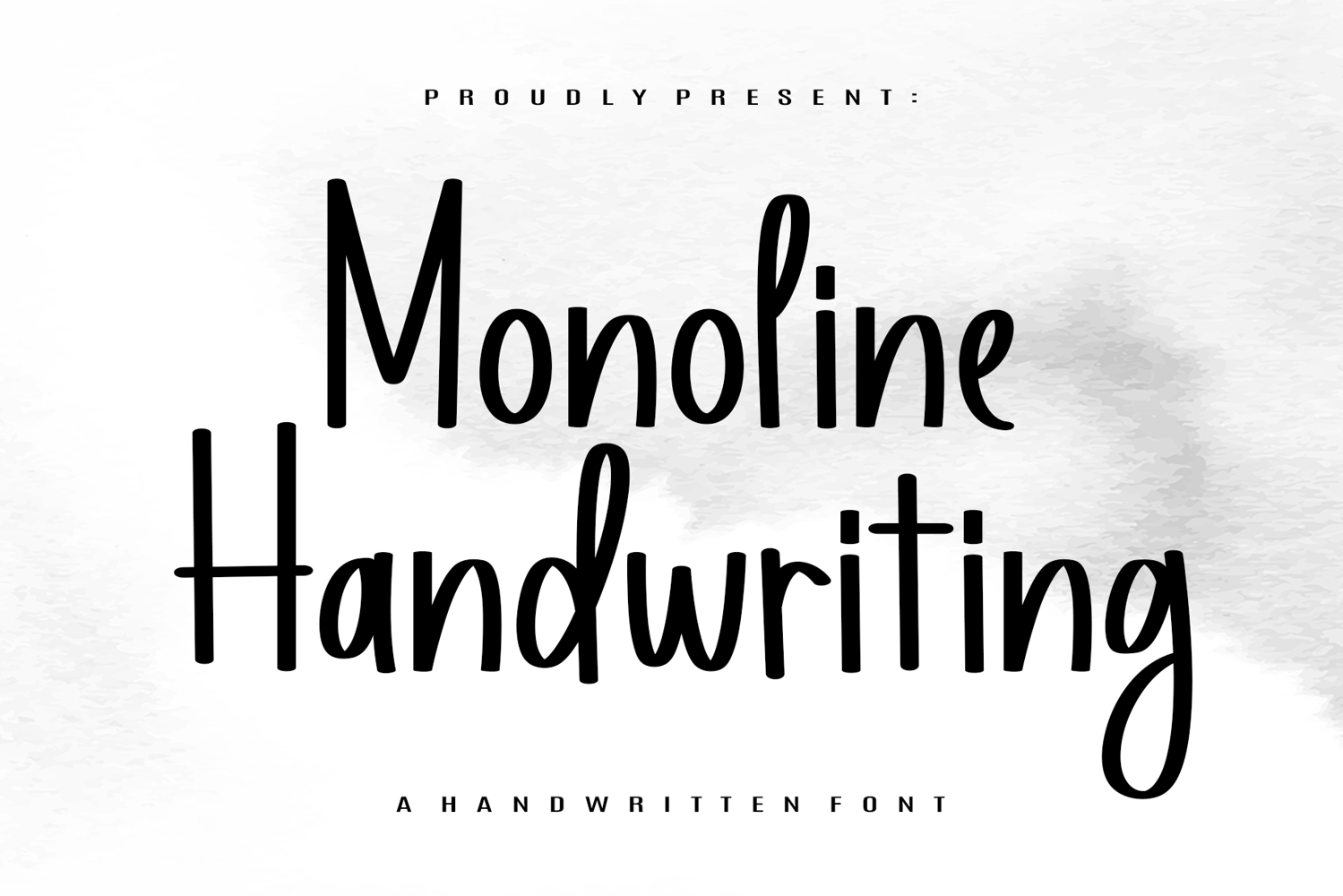
Monoline Handwriting
Discover the appealing simplicity of Monoline Handwriting, an effortlessly stylish font characterized by its fluidity and legibility.